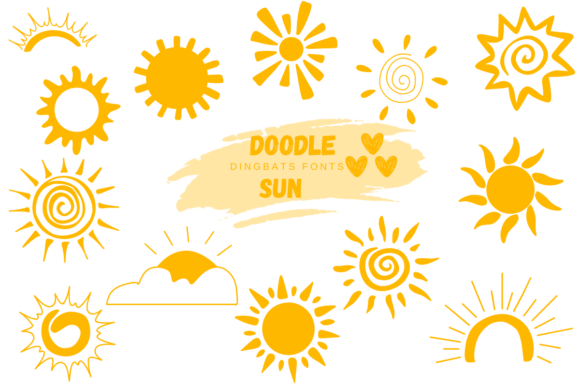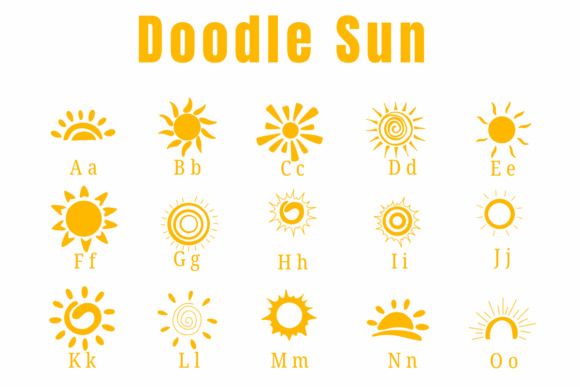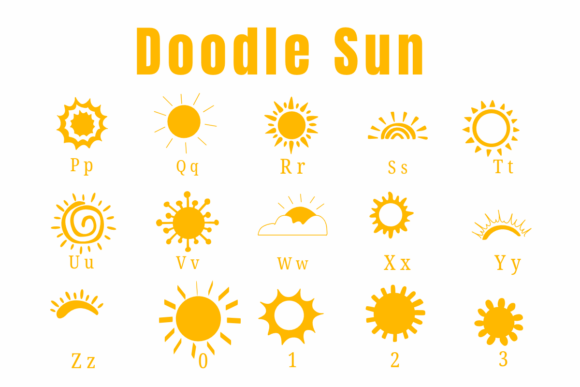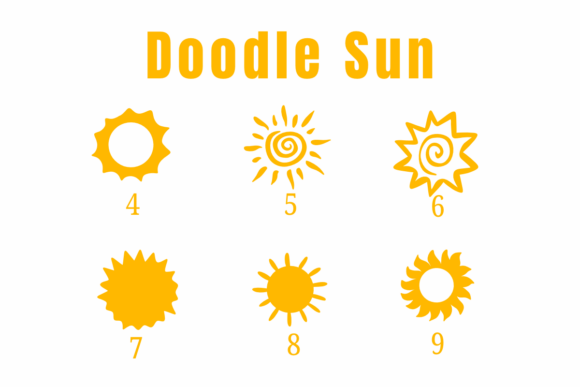
Doodle Sun Font
About the Doodle Sun Font
Meet Doodle Sun Font, a stunning font that brings a touch of elegance and professionalism to any design. Doodle Sun is a dingbats font with a natural theme. This font can enhance your creative projects such as wedding invitations, DIY, crafts, decorations, logos, and many other creative ideas.
Doodle Sun’s playful, hand-drawn aesthetic makes it ideal for projects needing a lighthearted touch, such as children’s books, branding for eco-friendly products, or whimsical invitations. It excels in headlines, short text blocks, and logos where its unique character can shine. However, its informal nature makes it unsuitable for body text or applications requiring high readability, like websites or long-form documents.
Pairing Doodle Sun with a clean sans-serif like Open Sans for body copy creates a strong contrast and balanced design. For a more sophisticated feel, consider pairing it with a classic serif font such as Garamond for elements requiring a touch of elegance. Avoid pairing it with other highly decorative fonts, which could result in a cluttered and visually overwhelming design.
Doodle Sun’s overall personality is friendly and approachable, conveying a sense of warmth and creativity. This makes it a perfect choice for brands that want to communicate a feeling of naturalness and approachability.
Doodle Sun Font Usage Examples
Doodle Sun Font Example